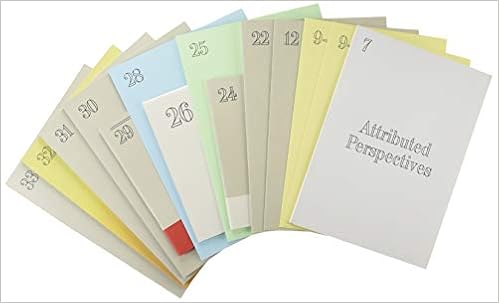
I’m looking for this Didone style font (Everything. Copublisher USI)
i just bought a series of books made by the architect kerstern geers and published by humbolt books. On each cover the title « everything » is written with a Didone-like typeface that look gorgeous. Here s the link : https://www.humboldtbooks.com/en/book/everything
Does anyone Knows the name of this font ? And its designer ?
I think Riccardo's answer is the correct one ! (the had a previous work where they used the Torino Open:31jGJje6kBL._SY301_BO1,204,203,200_.jpg